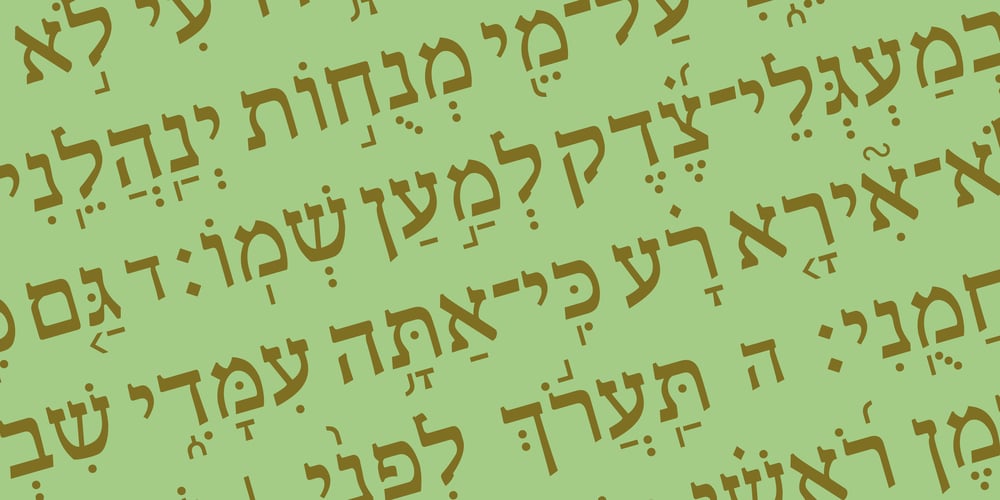
Hebrew Shira Tanach Font Family was designed by Sami Artur Mandelbaum and published by Samtype. Hebrew Shira Tanach contains 2 styles and family package options. This is a modern, wonderful, and beautiful font.This font is super readable and can be used from Posters to a Hebrew Bible.The readability of this font is amazing.This font has the modern Hebrew punctuation: Shevana, Kamatz Katan, Dagesh Hazak, and Cholam Chaser.